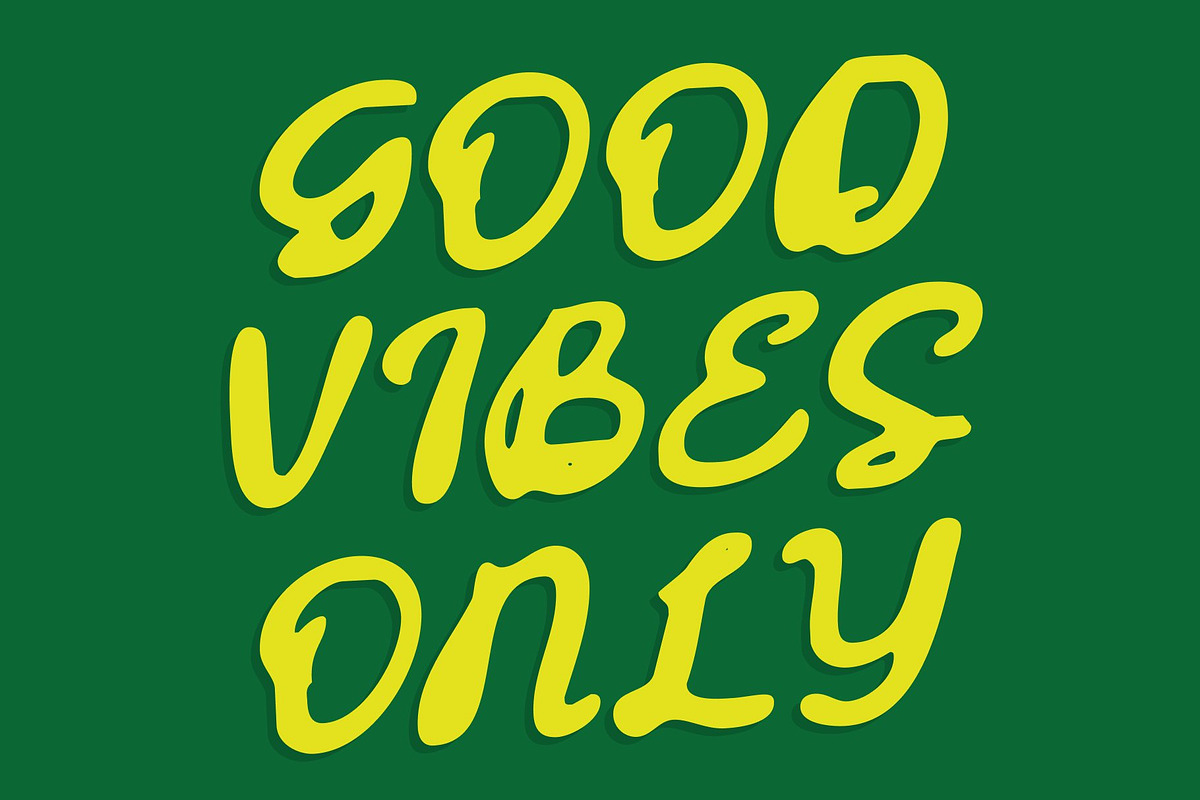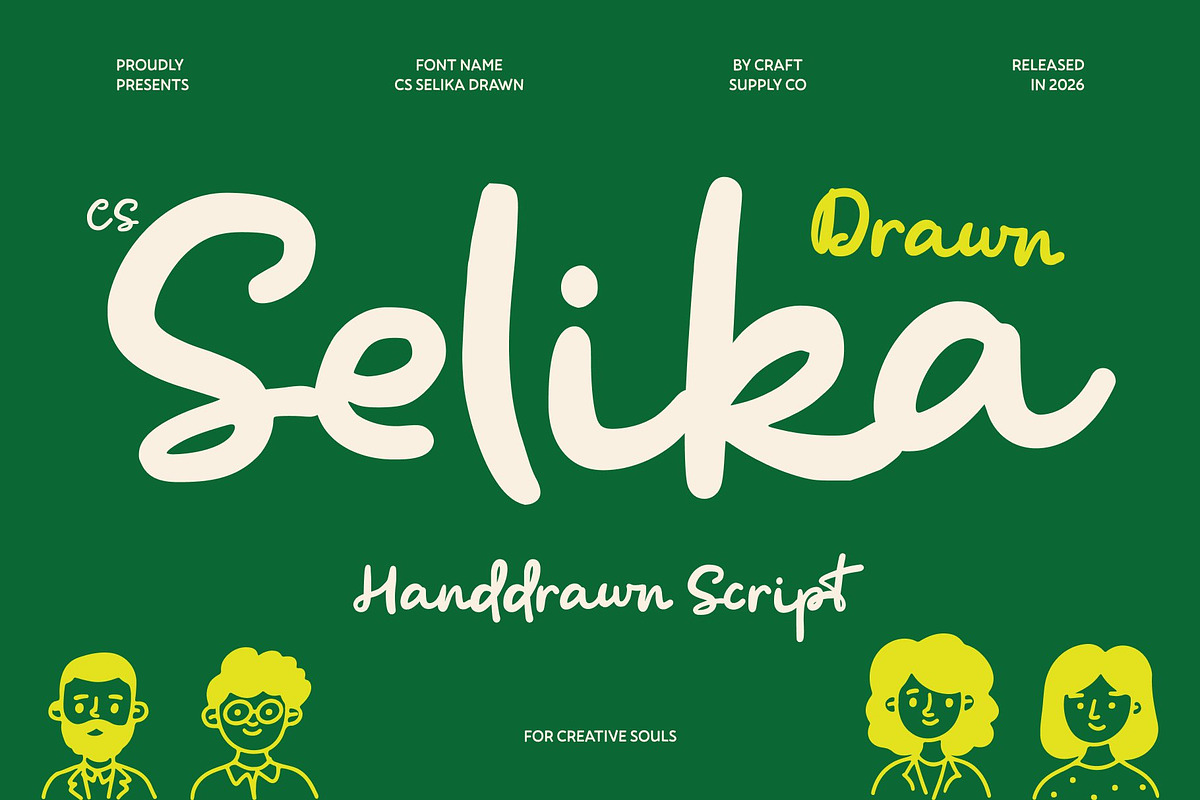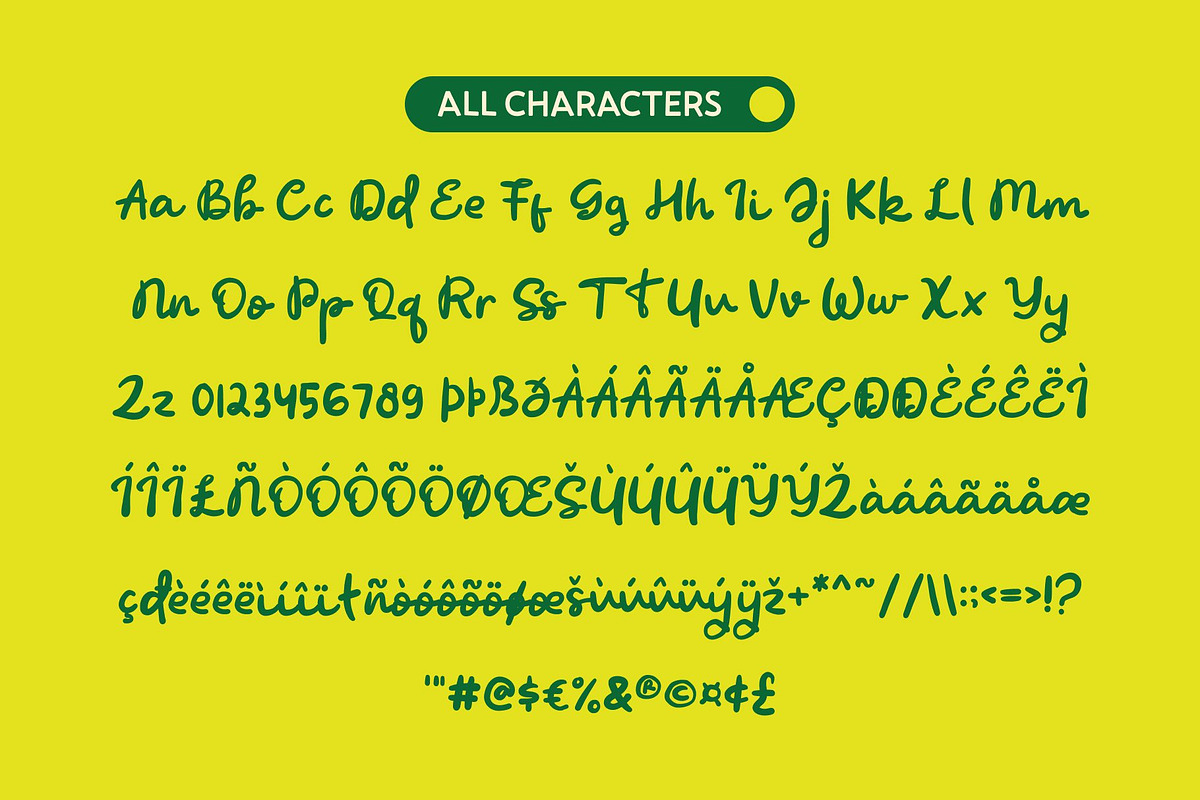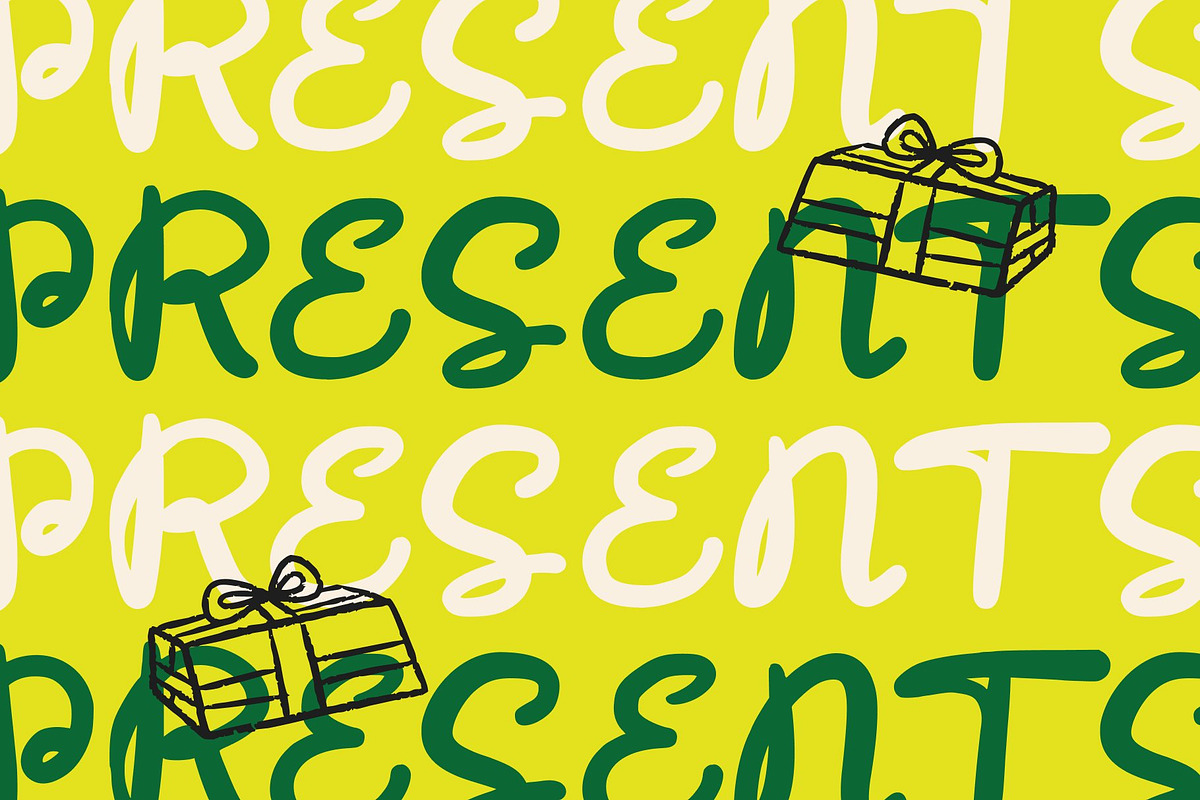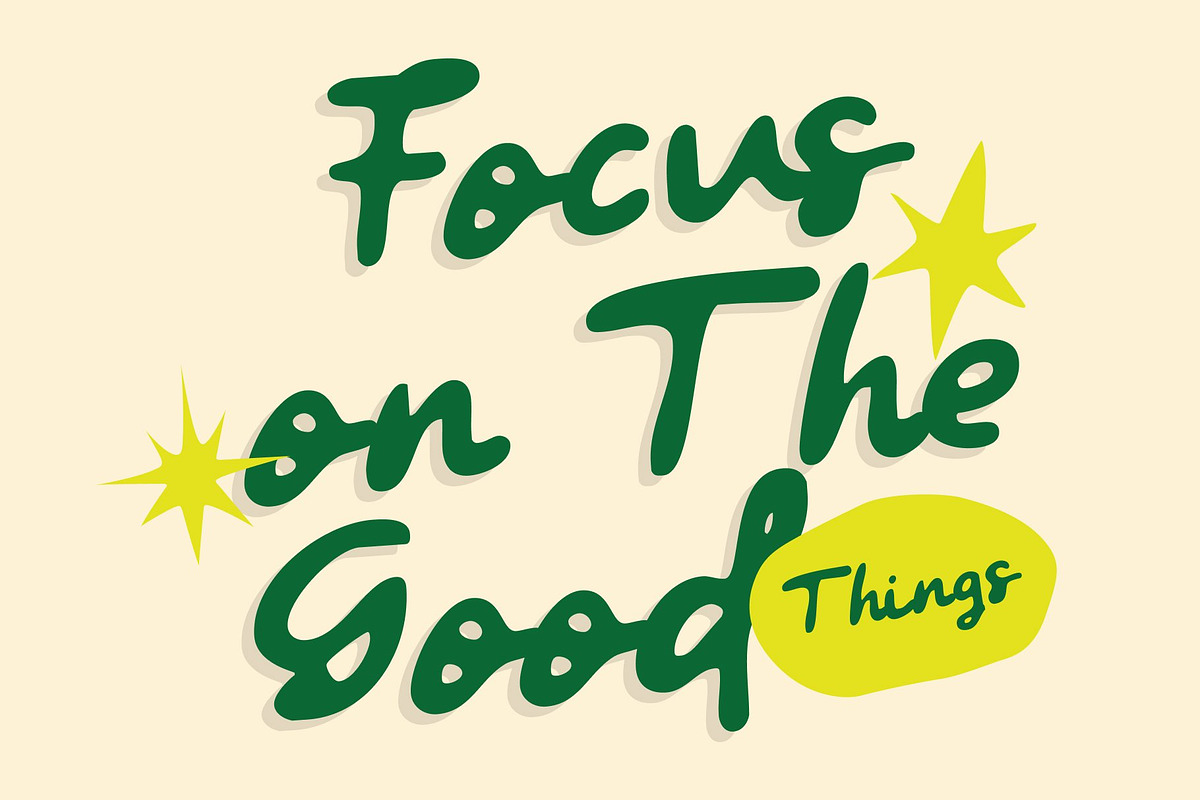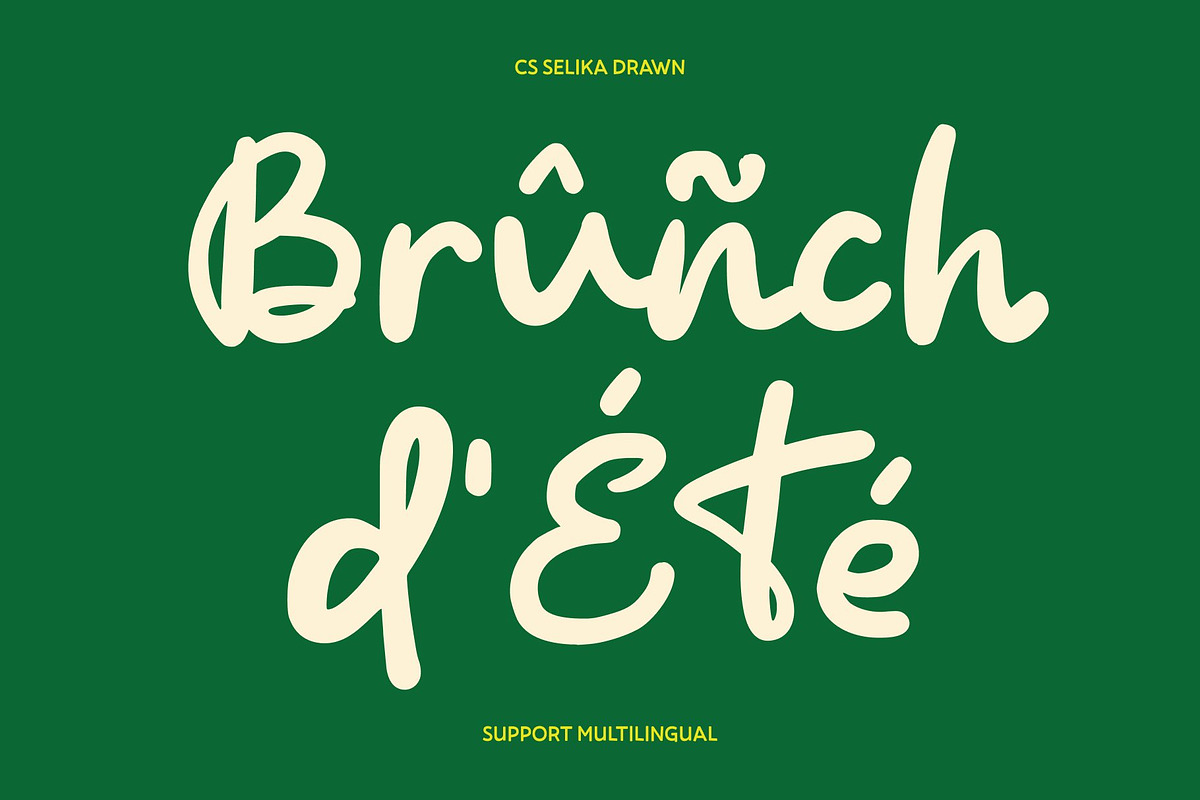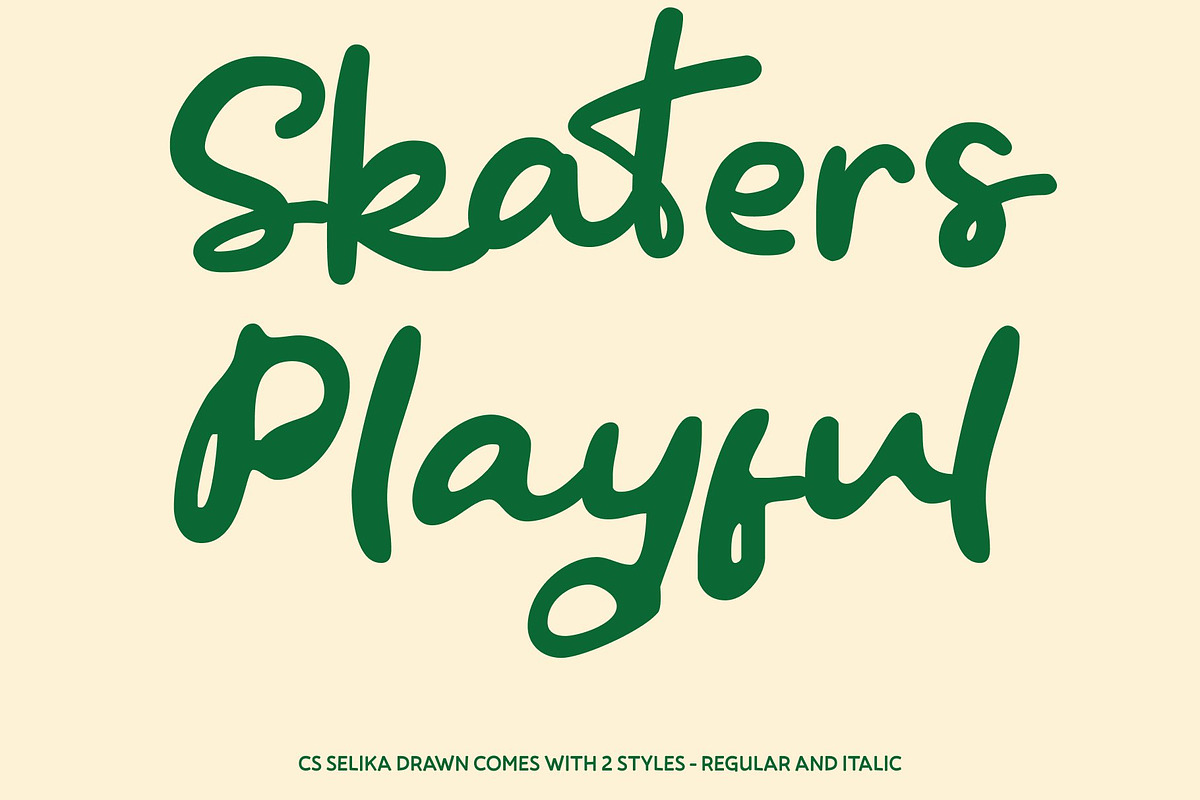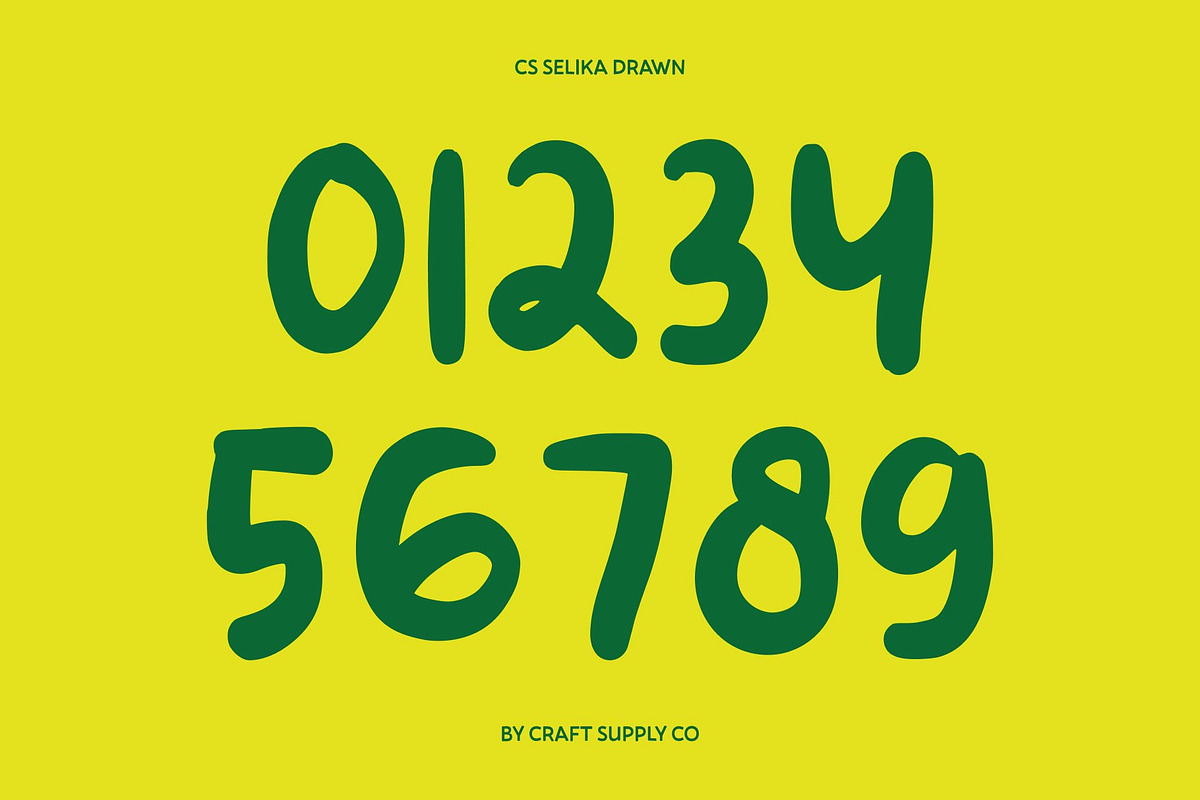
CS Selika Drawn
CS Selika Drawn – Handwritten Script Font with Delicate Creative Flourishes
Delicate Handwritten Style with Personal Charm This is a handwritten script font that radiates elegance, warmth, and individuality. Enhanced with a subtle drawn texture, each letter feels organic and handcrafted, adding an artistic, human touch to every design. The flowing strokes maintain readability while showcasing the natural beauty and spontaneity of handwriting, making the font personal, graceful, and full of character.
Creative Flourishes with Artistic Flair This font features delicate, tasteful flourishes that elevate its visual rhythm without overwhelming the forms. The drawn texture emphasizes each flourish, giving the script a handcrafted, artistic quality. The result is a font that feels expressive, refined, and unique perfect for designs that need a soft, decorative touch with personality.
Elegant and Contemporary Mood This font exudes sophistication while remaining approachable. Its smooth curves and subtle movement make it ideal for fashion, lifestyle, and creative branding projects. Whether layered into expressive compositions or paired with minimalist layouts, the font delivers a modern handwritten elegance that feels stylish and inviting.
Perfect for Branding, Invitations, and Fashion Design Ideal for logos, wedding invitations, stationery, editorial layouts, and packaging, CS Selika Drawn adds charm, personality, and a touch of artistry to any project. Its delicate hand-drawn texture ensures designs feel thoughtful, memorable, and visually enchanting.